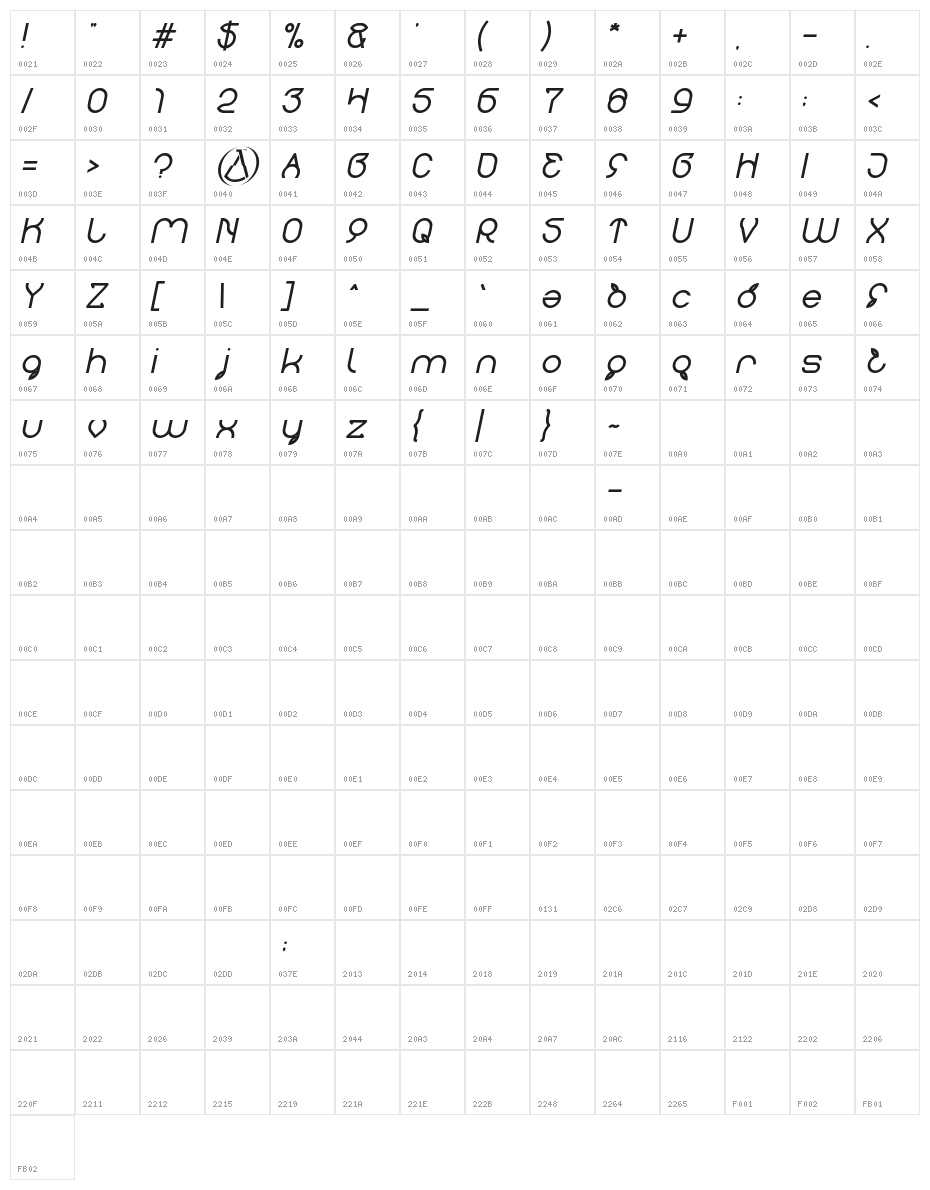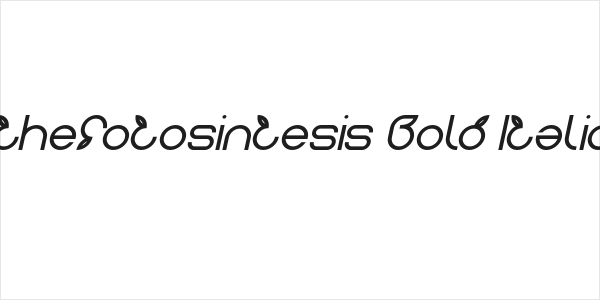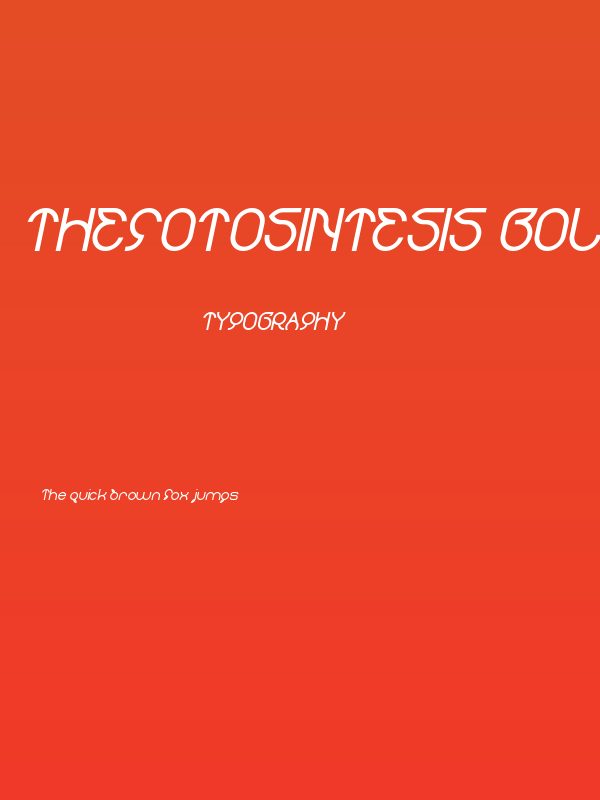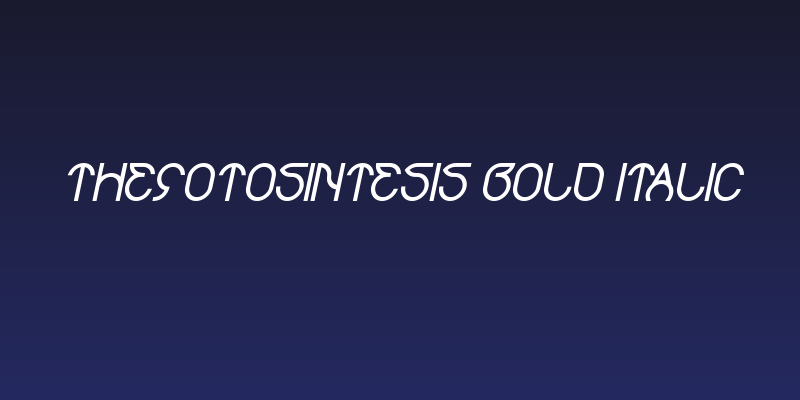
thefotosintesis Bold Italic Font
thefotosintesis Bold Italic Description
This font features a unique and modern design with a bold and italic style. The characters are crafted with a sleek, flowing appearance, incorporating leaf-like elements that add a decorative touch. The uppercase and lowercase letters maintain a consistent style, with smooth curves and a slight slant that enhances the italic effect. Numbers and special characters are designed to match the overall aesthetic, ensuring a cohesive look across all text elements. The font's distinctive style makes it suitable for creative and artistic projects, where a touch of elegance and modernity is desired.
| Proposed Projects | Ideal for branding, logos, packaging, and artistic projects that require a modern and decorative touch. |